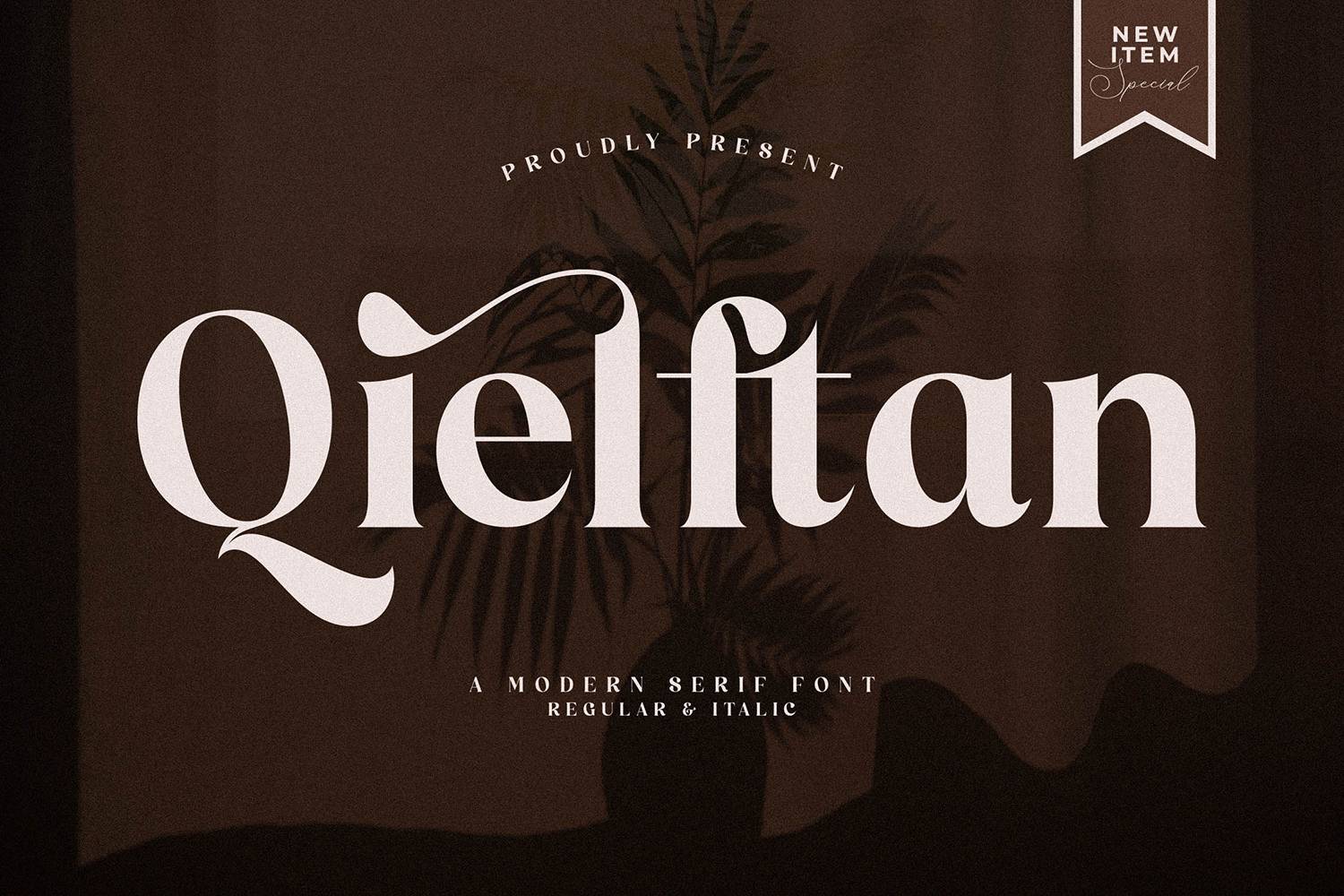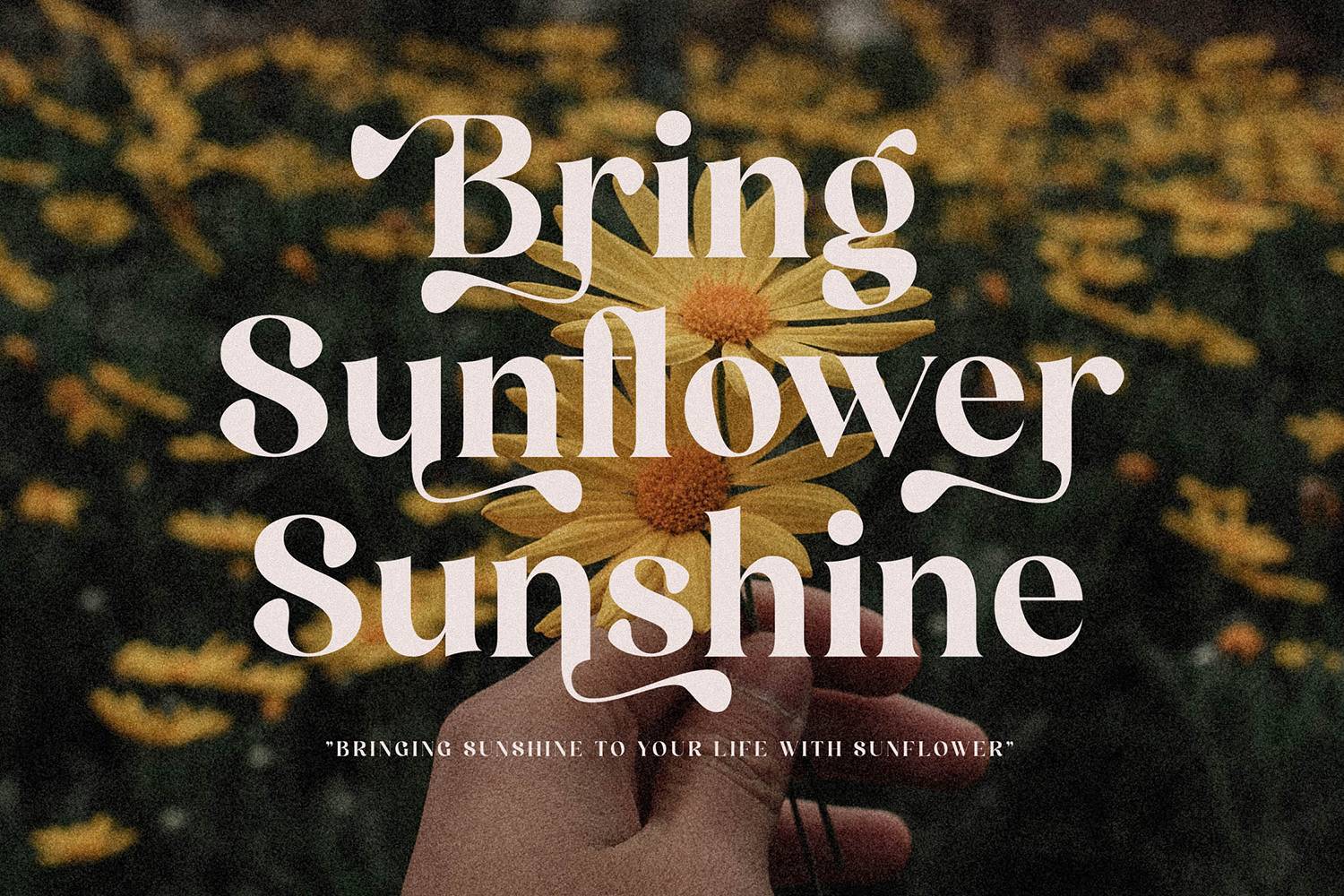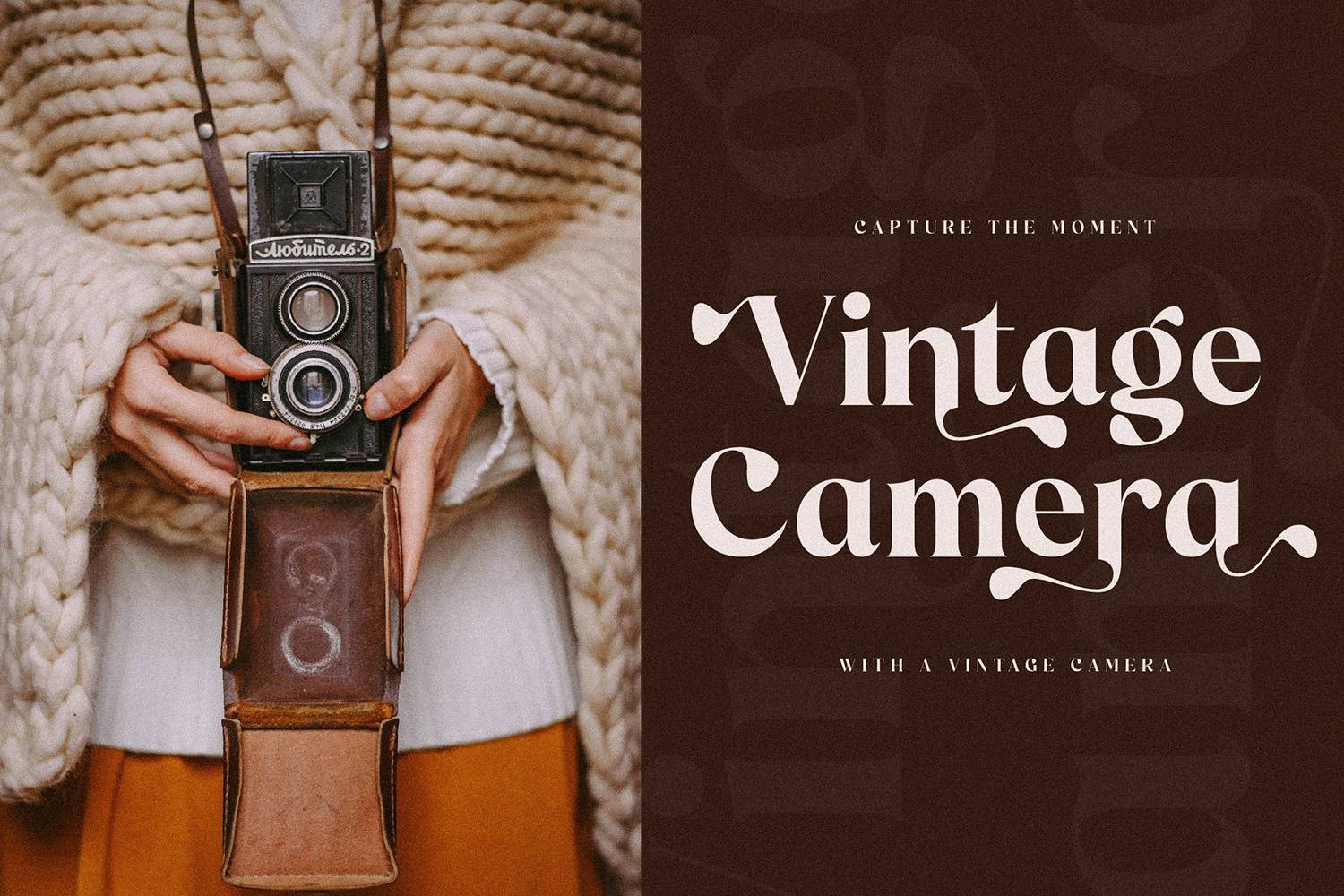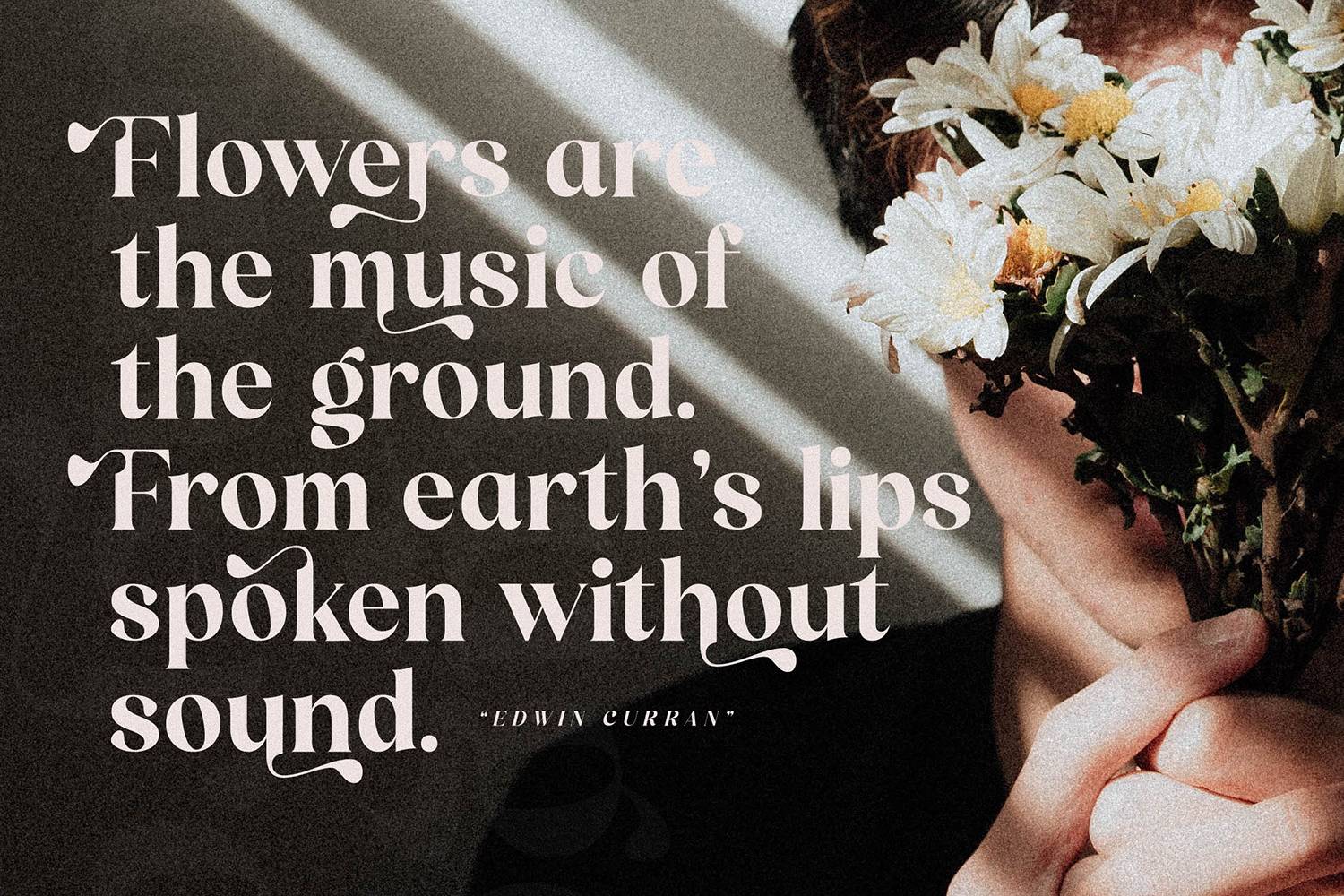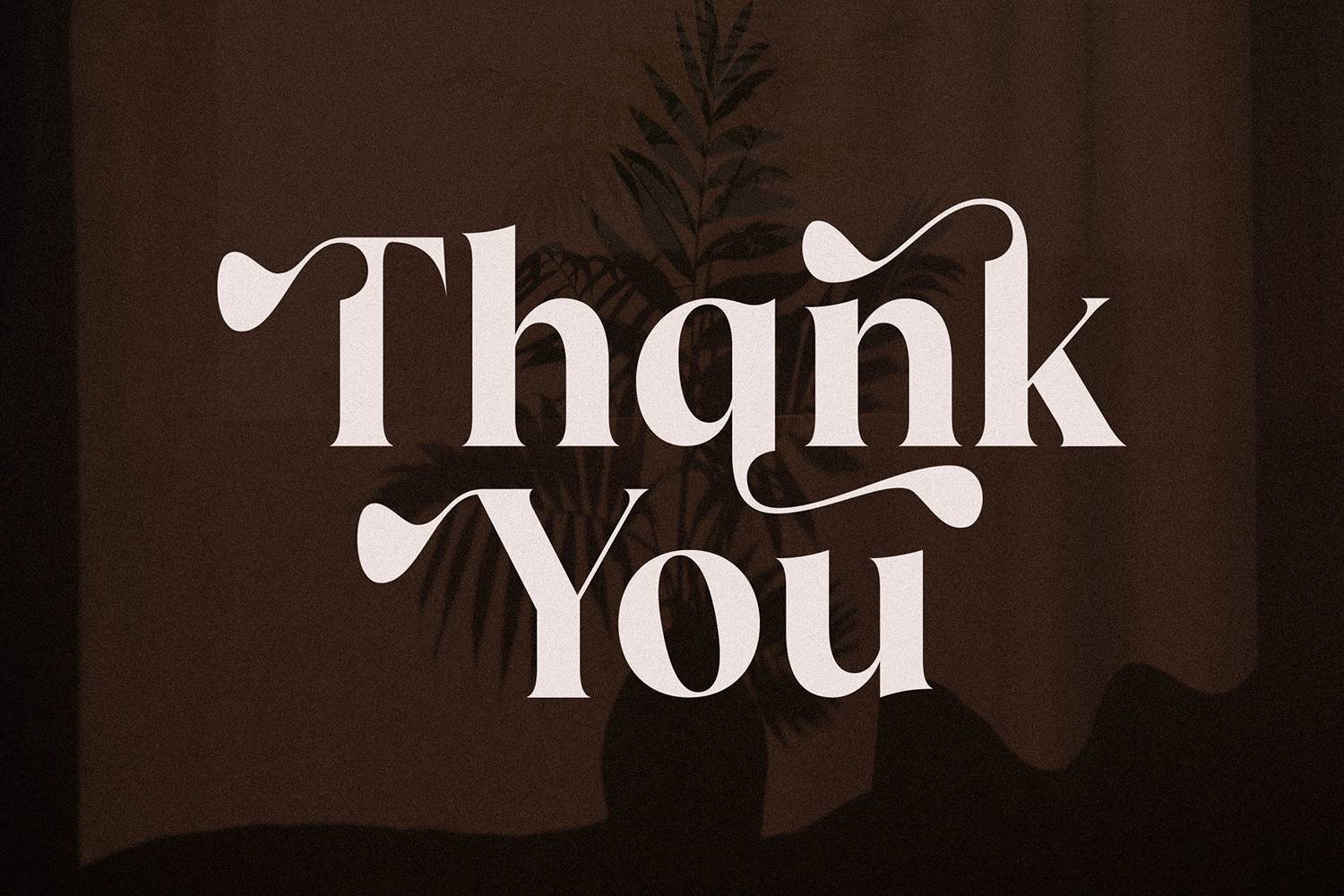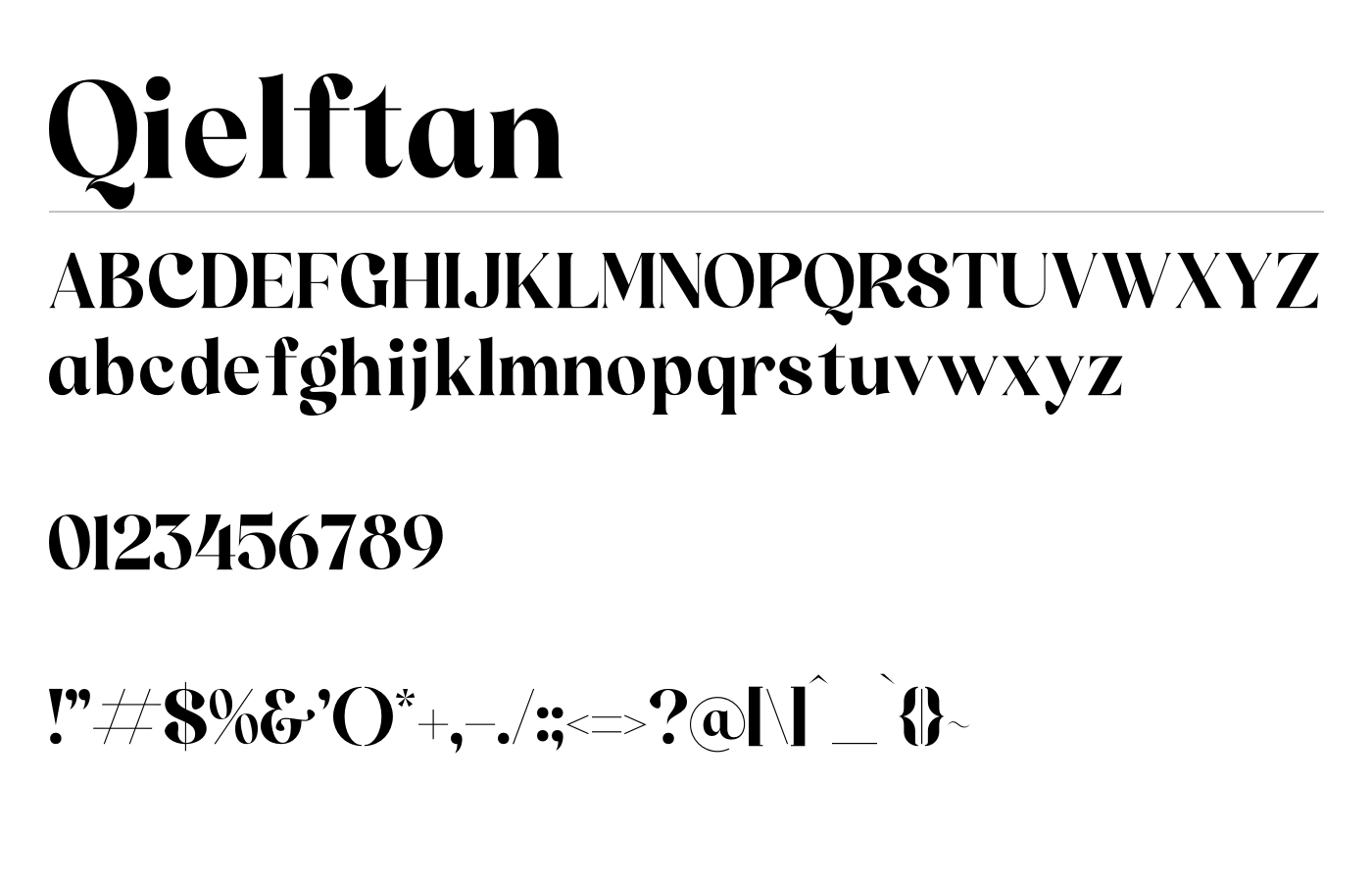
Qielftan is a bold serif font with high contrast between thick and thin strokes, featuring elegant bracketed serifs and a mix of double-story and single-story letterforms that add character and readability. Its refined yet strong appearance makes it perfect for luxury branding, editorial headlines, and sophisticated logos where a classic and stylish impression is desired. This font combines traditional elegance with modern flair, ensuring a commanding presence in both print and digital designs.
Qielftan Font